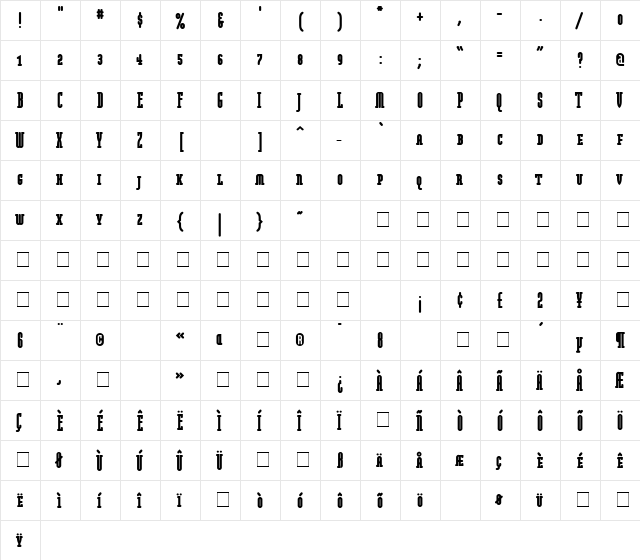
ModulaRoundSerifUltraSmCap Round Serif Ultra Sm Cap
Design Context for ModulaRoundSerifUltraSmCap Typeface
ModulaRoundSerifUltraSmCap carries the refined structure of traditional serif typography, with bracketed terminals and considered proportions that communicate credibility and craft.